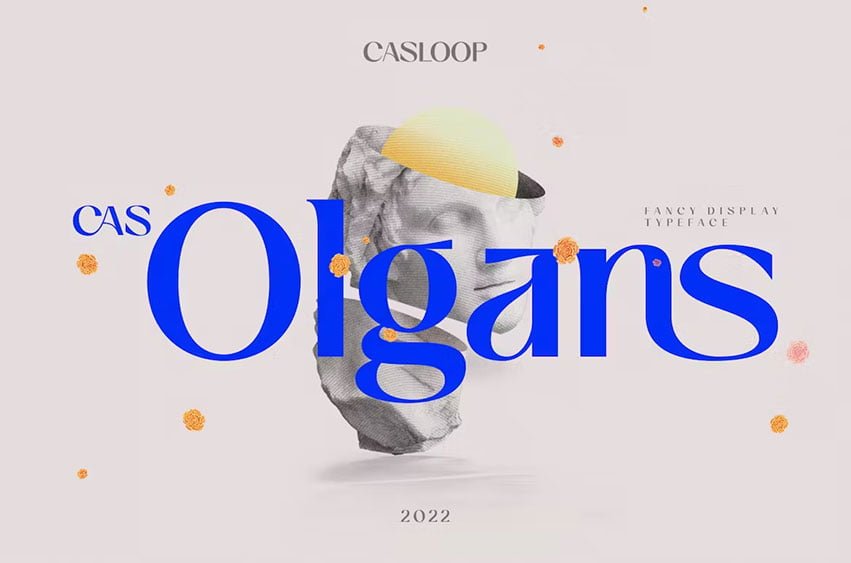
Cas Olgans Font is a semi-serif with a renaissance nuance, along with the tendency of modern typefaces according to current trends. It has a light look and without excessive accents. Easy to mix and match with various types of fonts is the main attraction of this typeface.
The ligatures and alternatives aren’t dull, but they’re not pushy. This typeface can be seen from an elegant and casual point of view and in the thin semi-serif accents of each replacement character.
Multi-language for western Latin and Latin characters for Asia, Oceania, and Africa, as a complement to the functionality of Cas Olgan for more segmented purposes.